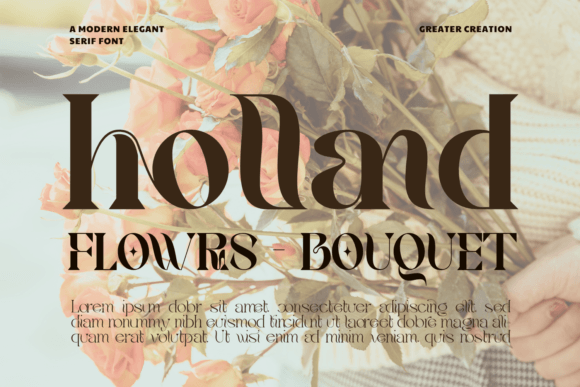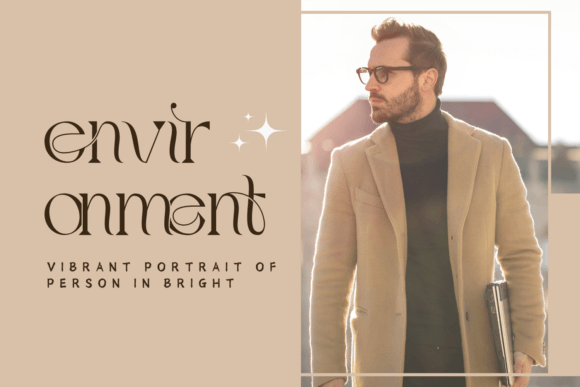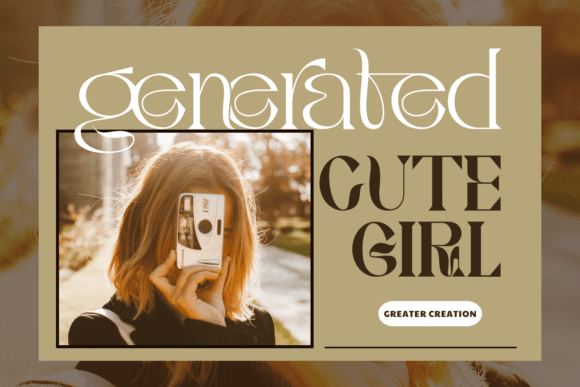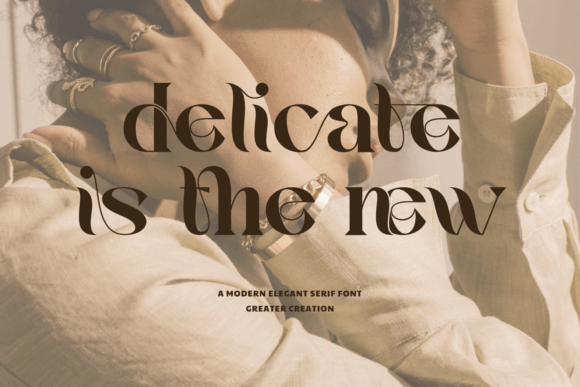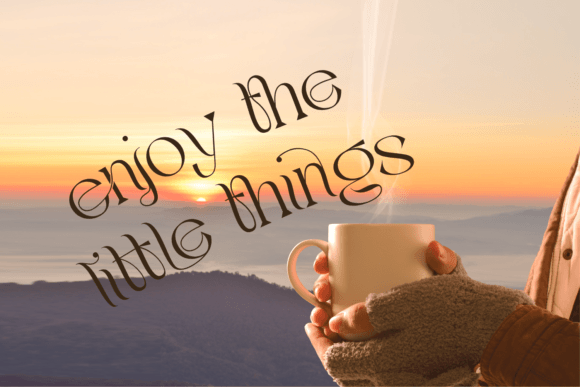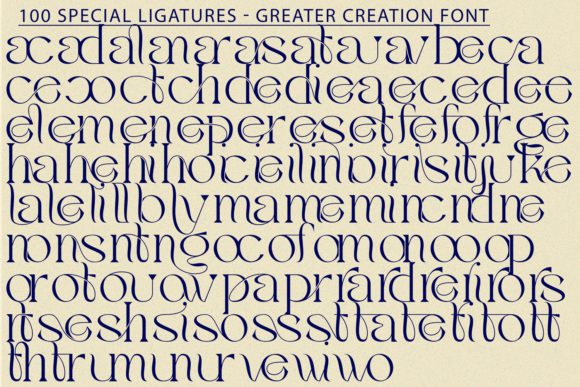
Introduction to Greater Creation Font
Have you ever been working on a creative project, pouring your heart and soul into every detail, only to feel like something is missing? Maybe you’ve been searching for that perfect design resource to elevate your work and give it a touch of sophistication. If so, you’re in luck because we’re about to introduce you to the perfect solution – the Greater Creation Font.
This refined display serif font is a game-changer for designers who want to add a touch of modernity to their editorial layouts, branding, and web designs. With its classic serif elements and contemporary design, the Greater Creation Font is the perfect choice for those who value high-quality design and are looking for a font that will make their work stand out.
Whether you’re working on a free download or a paid project, the Greater Creation Font is an invaluable resource that will take your designs to the next level. With its transparent background and sleek design, it’s perfect for designers who want to create stunning visuals without any distractions.
Key Features of Greater Creation Font
- Unique, handcrafted design with intricate details and ornate elements.
- Perfect for use in graphic design, digital art, and other creative projects where a touch of elegance is needed.
Honest Review: Greater Creation Font
I recently had the chance to use the Greater Creation Font for a creative project and I must say, I was quite impressed. As a designer, I’m always on the lookout for high-quality design resources that can elevate my work. This font definitely fits the bill.
- ✨ One of the standout features of the Greater Creation Font is its versatility. It can be used for a wide range of creative projects, from logos and branding to digital art and graphics.
- ✨ The transparent background feature is also a nice touch. It allows for easy customization and integration with other design elements.
However, there are a few limitations to keep in mind. ⚠️ The font may not be suitable for all types of projects, particularly those that require a more formal or traditional look. Additionally, the free version has some limitations on usage and commercial applications.
Overall, I’m very pleased with the Greater Creation Font. It’s a high-quality design resource that’s perfect for creative projects. While it may have some limitations, I think it’s well worth the free download. I’d definitely recommend it to fellow designers and artists looking for a versatile and stylish font.
The Greater Creation Font is a high-quality, free design resource ideal for various creative projects. Its transparent background makes it versatile and easy to use in different applications.
For optimal results, use the Greater Creation Font on a dark or contrasting background to make the text stand out.
The Greater Creation Font is ideal for various creative projects, such as logos, posters, social media graphics, and more.